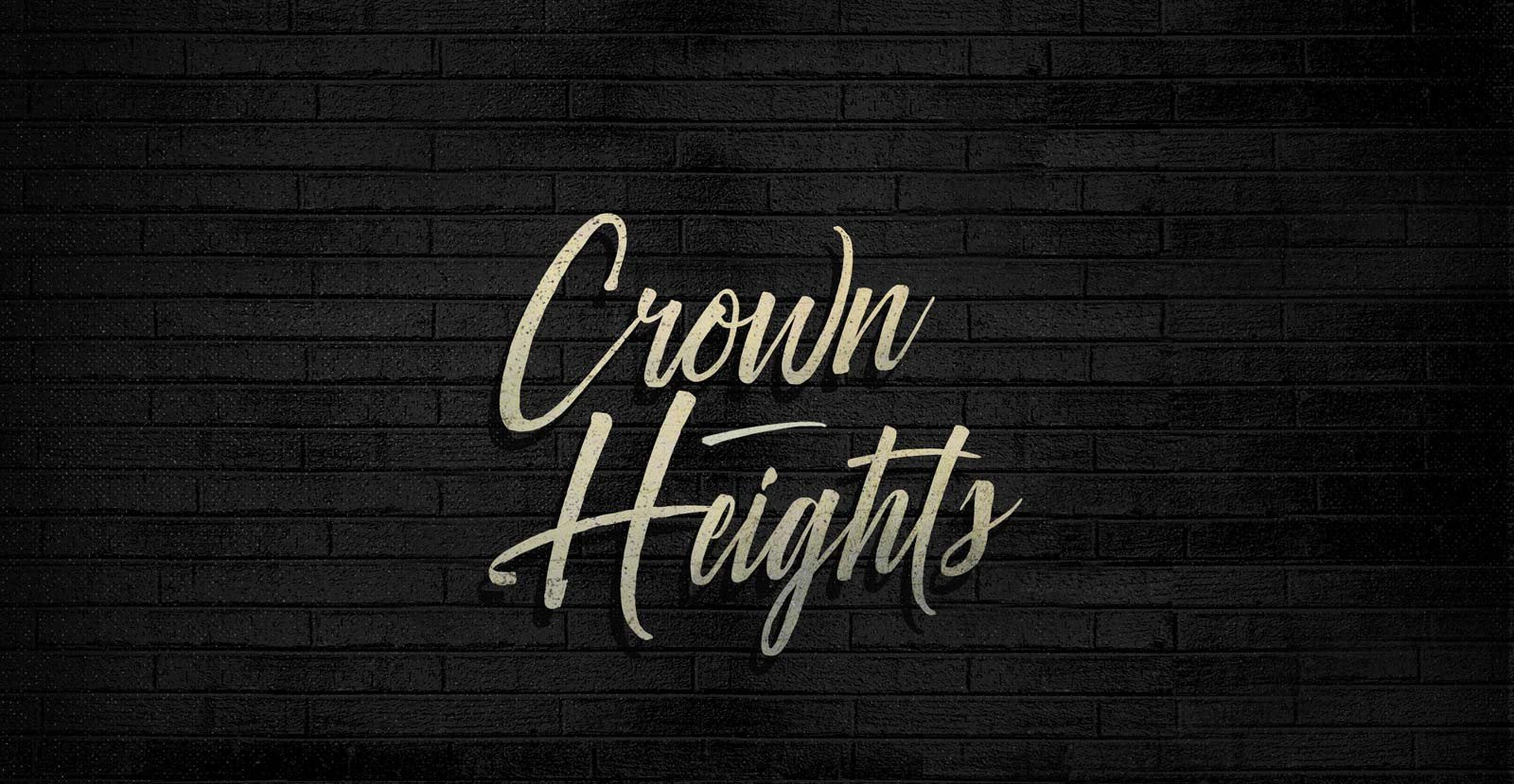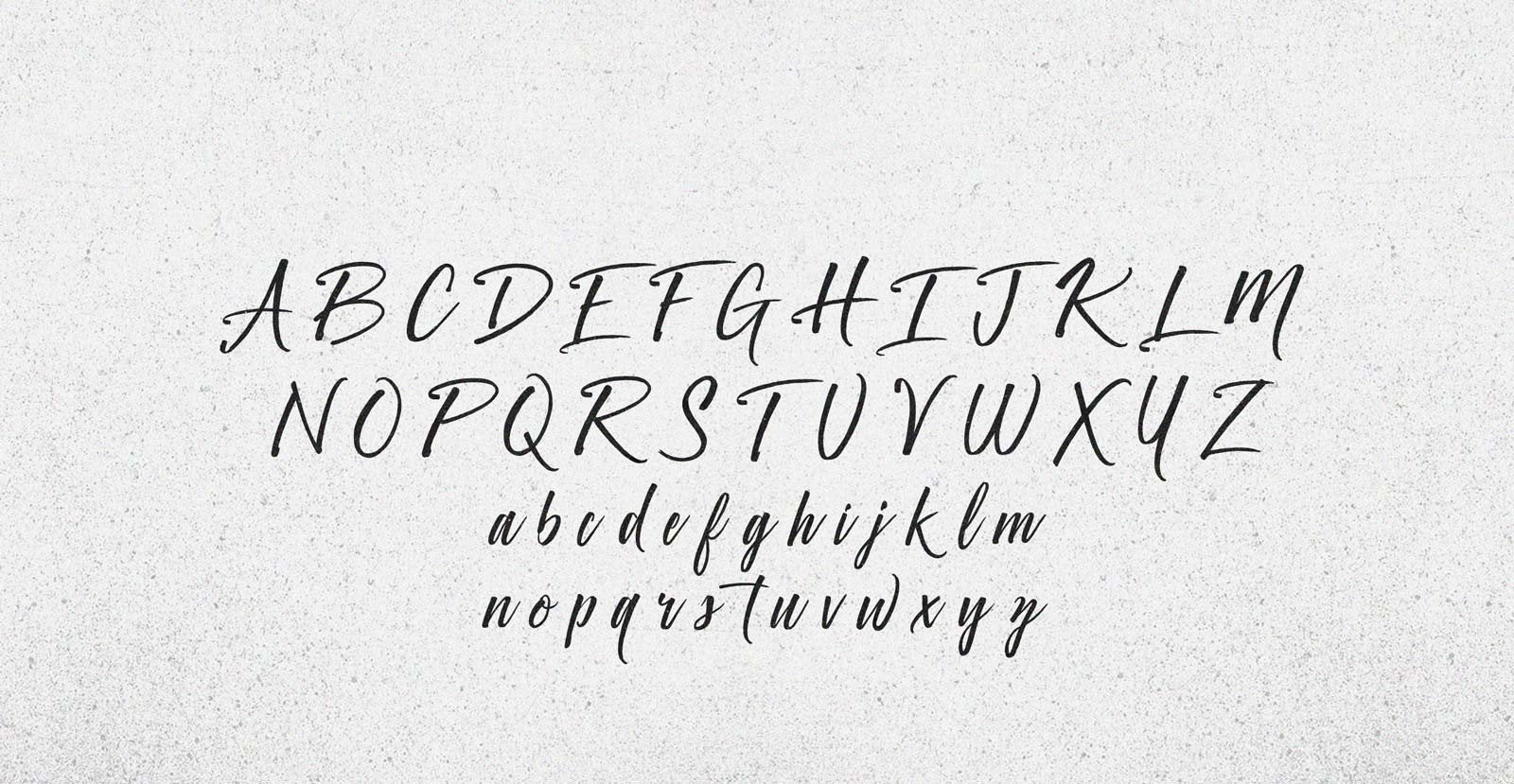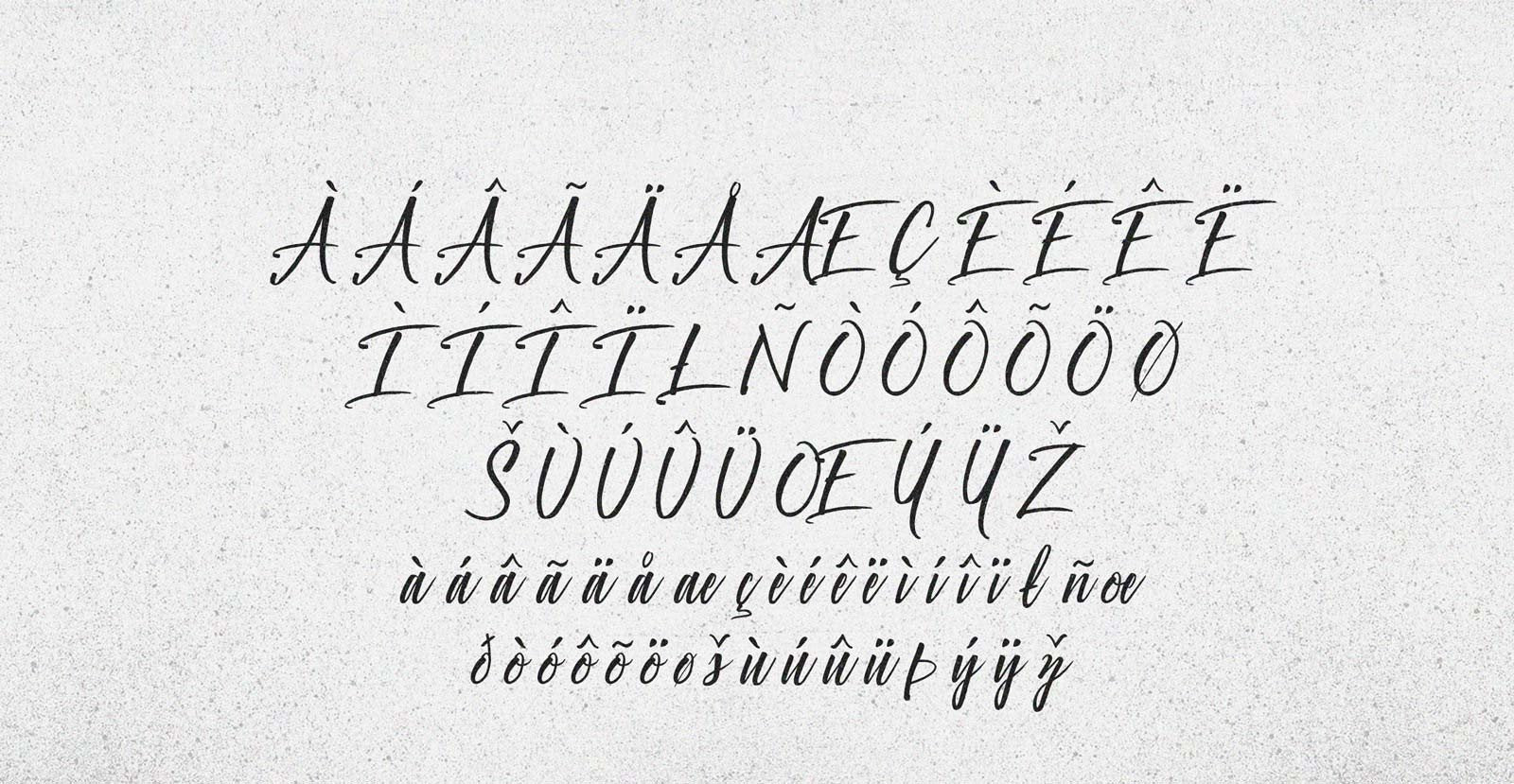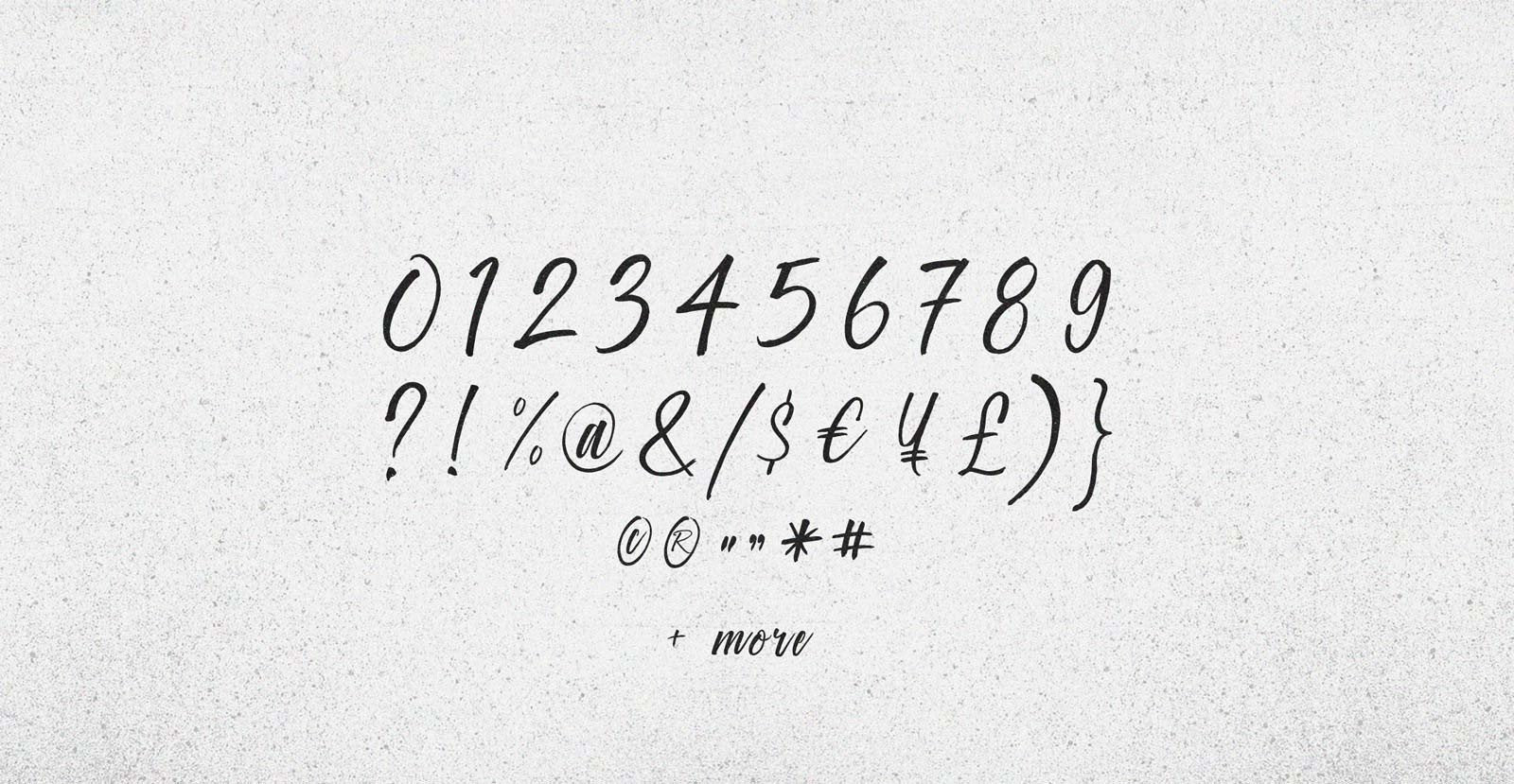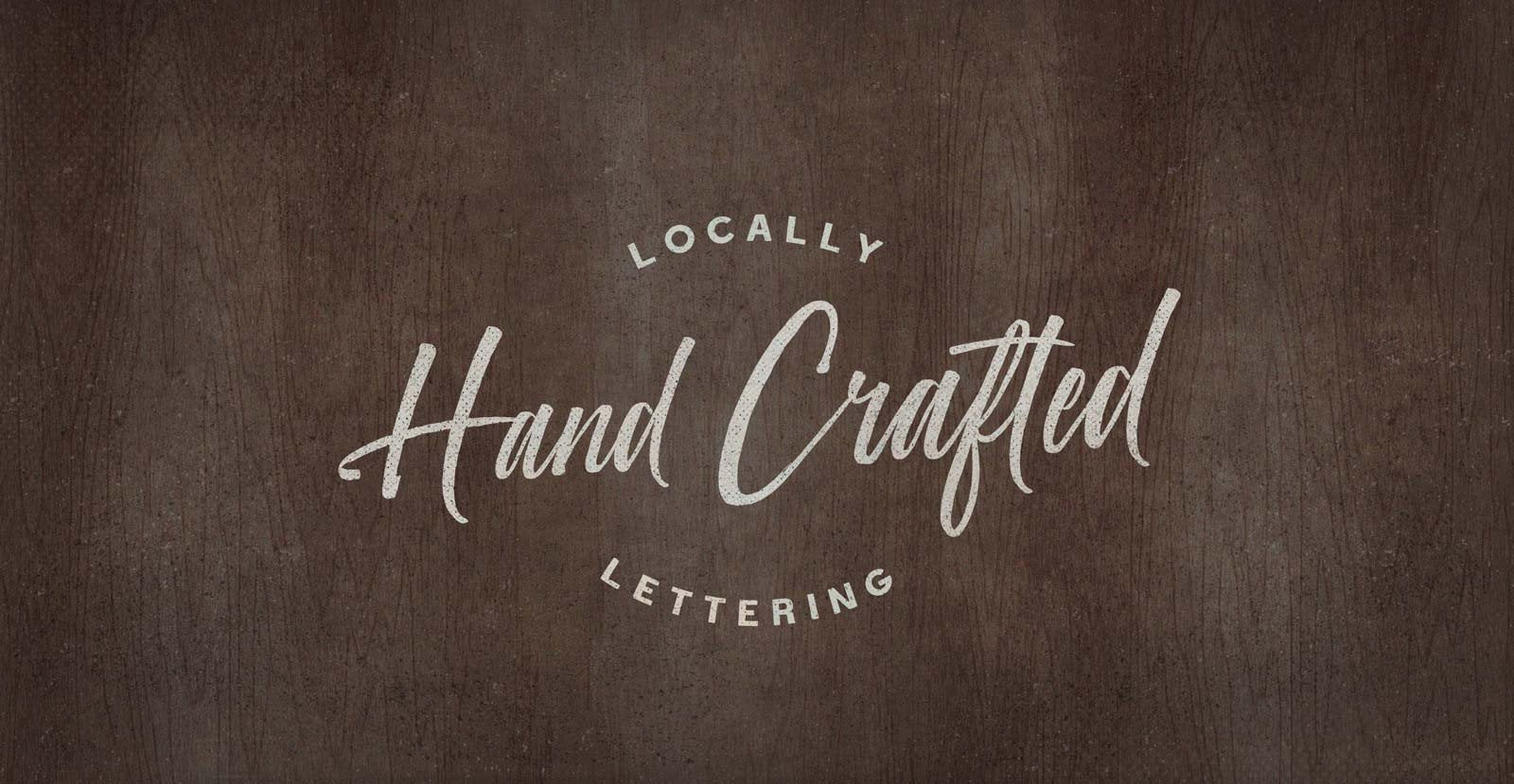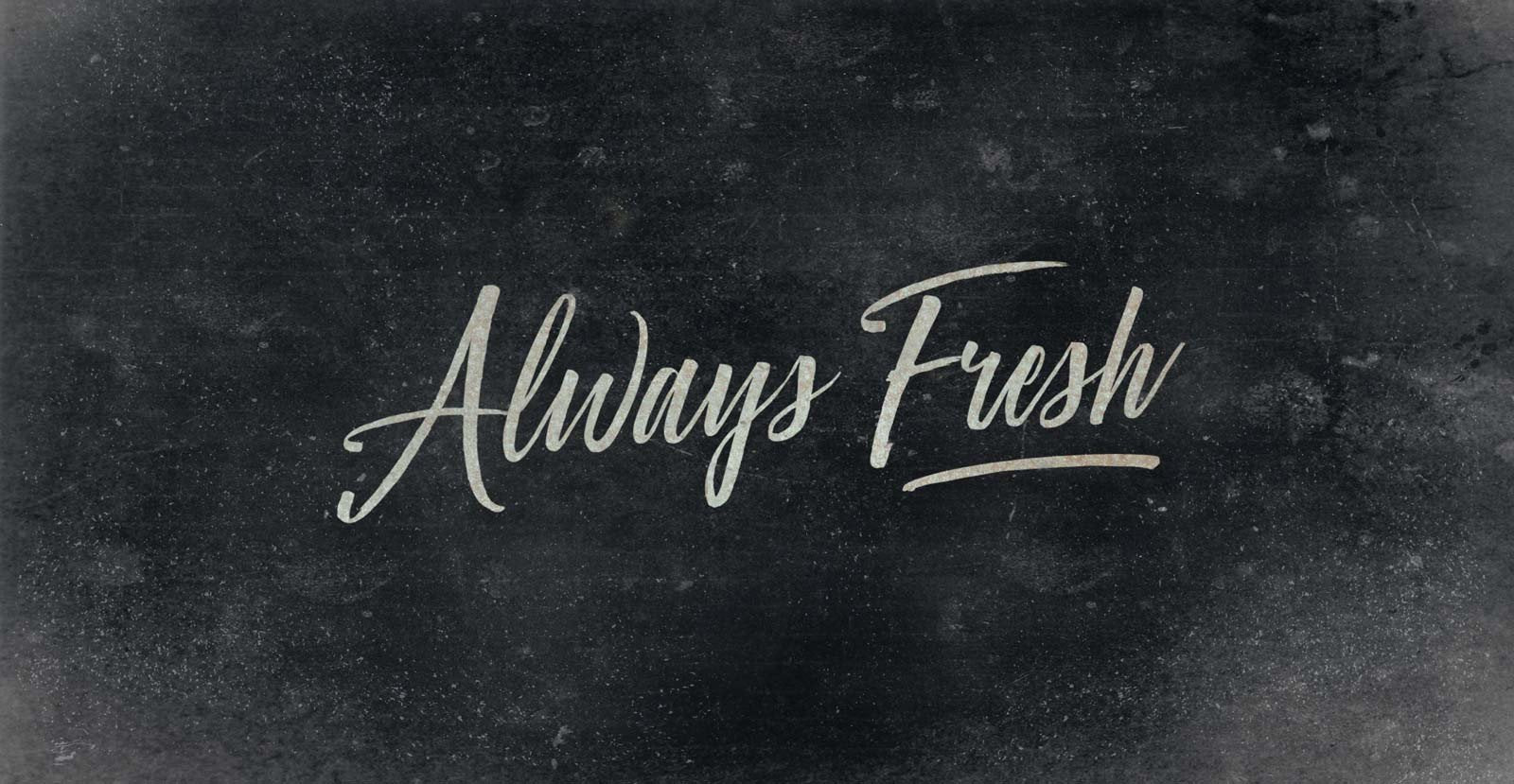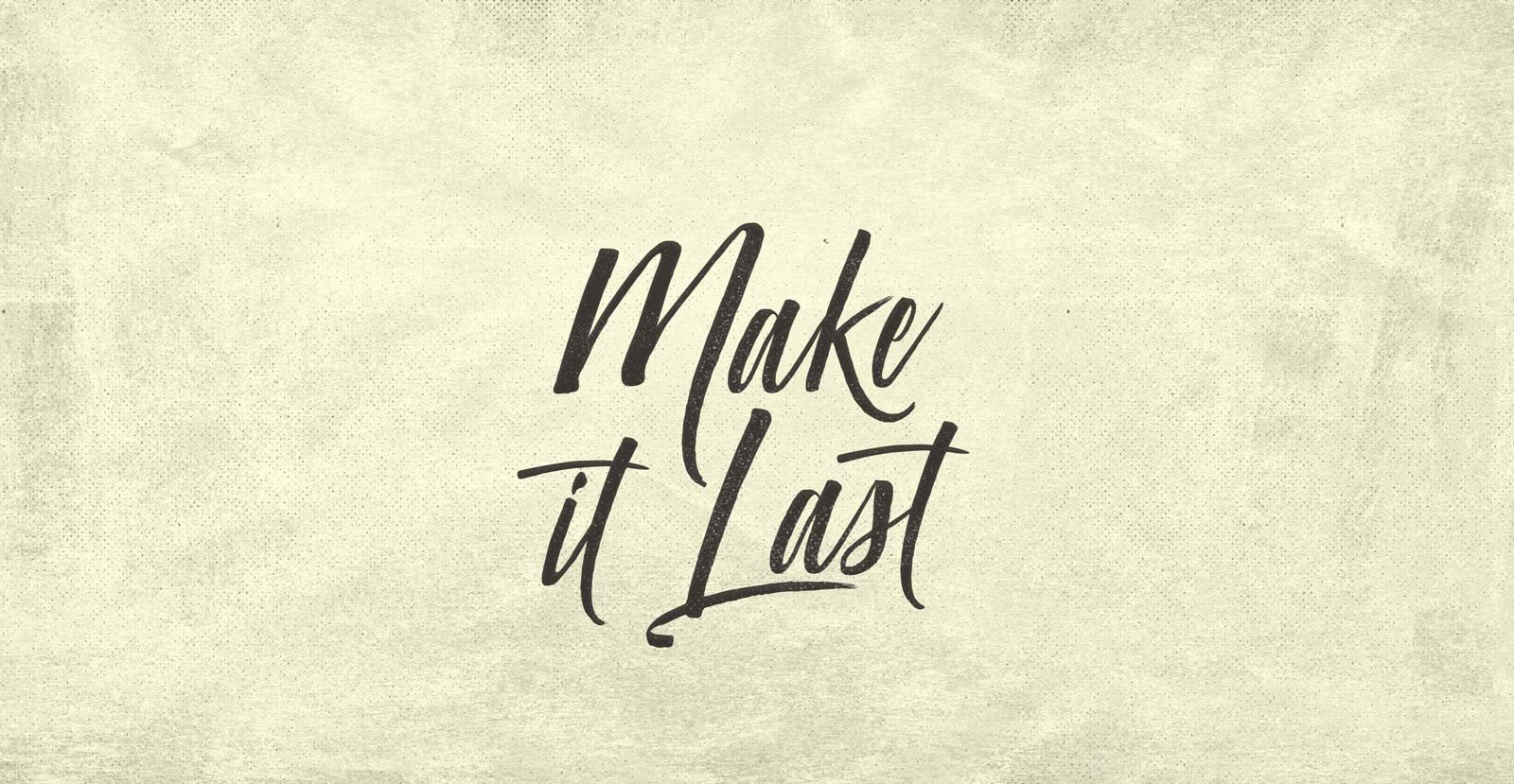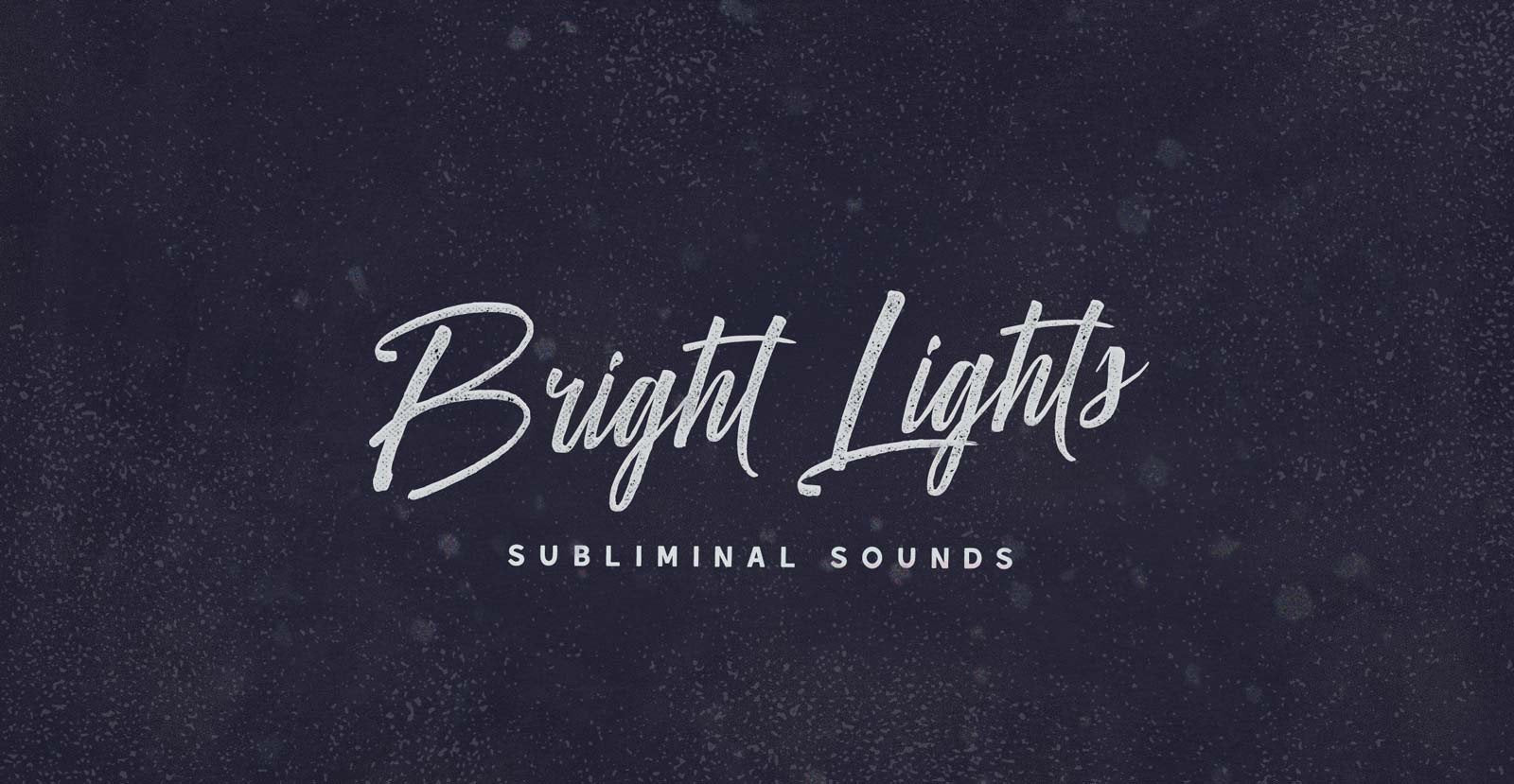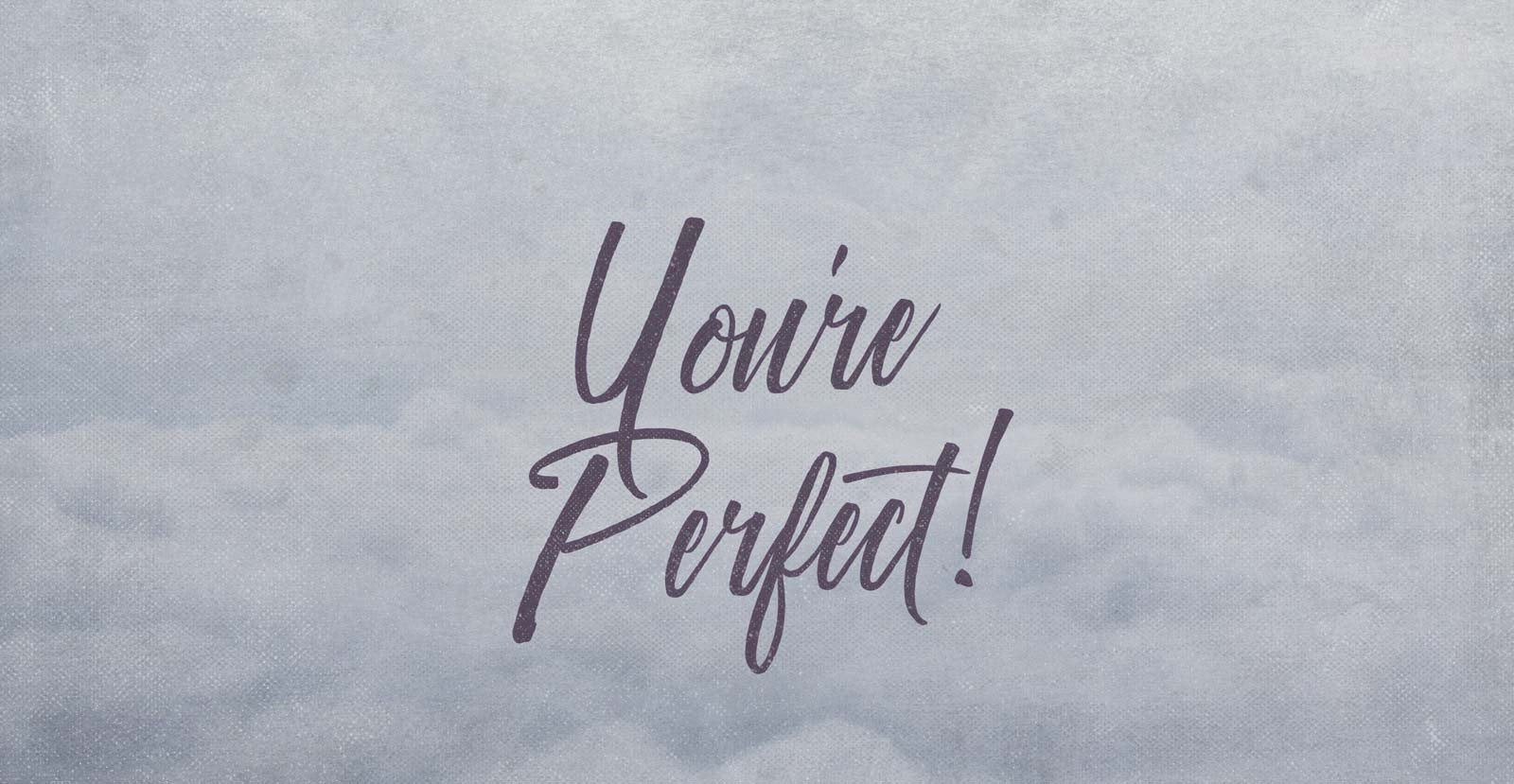
Crown Heights
Persisting through generations, fount of philosophies declaring divine right: On top of the dais, on top of the throne, on top of the head, Crown Heights represents the pinnacle of power and prestige.